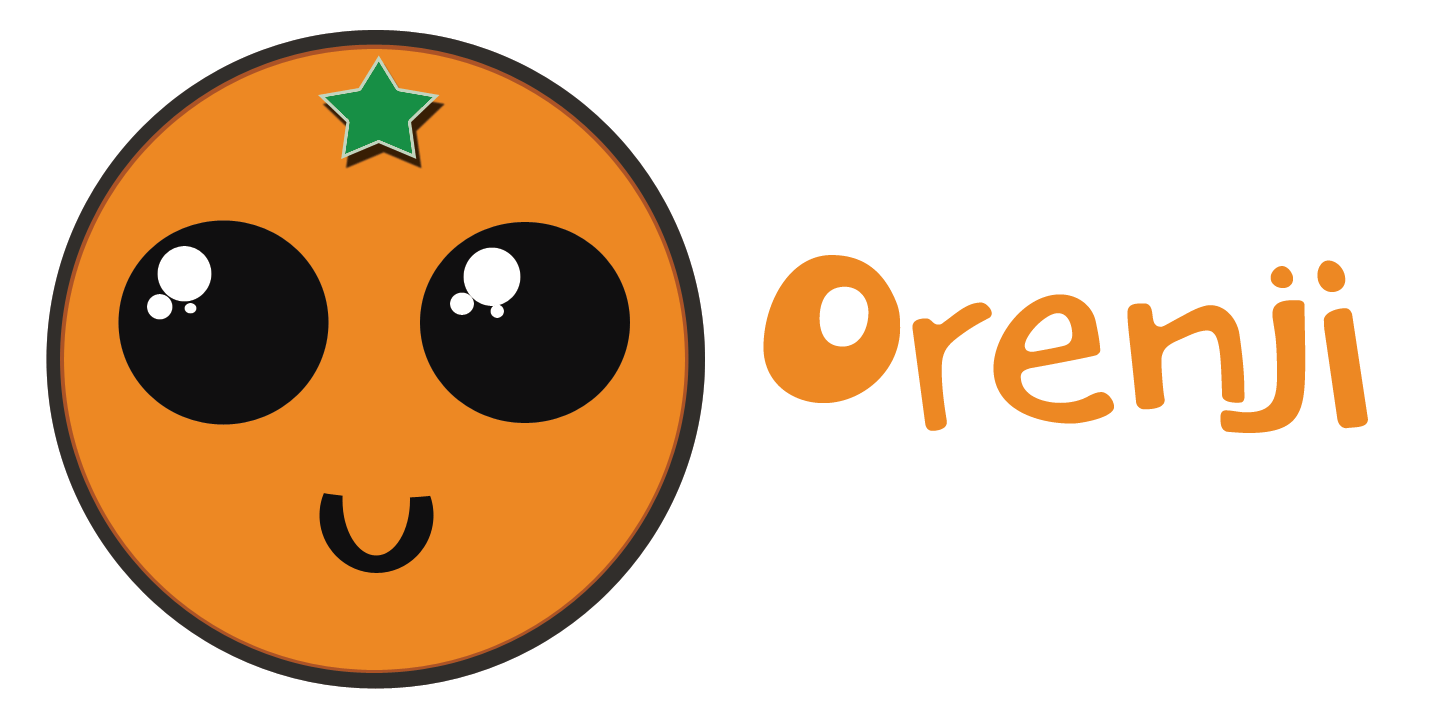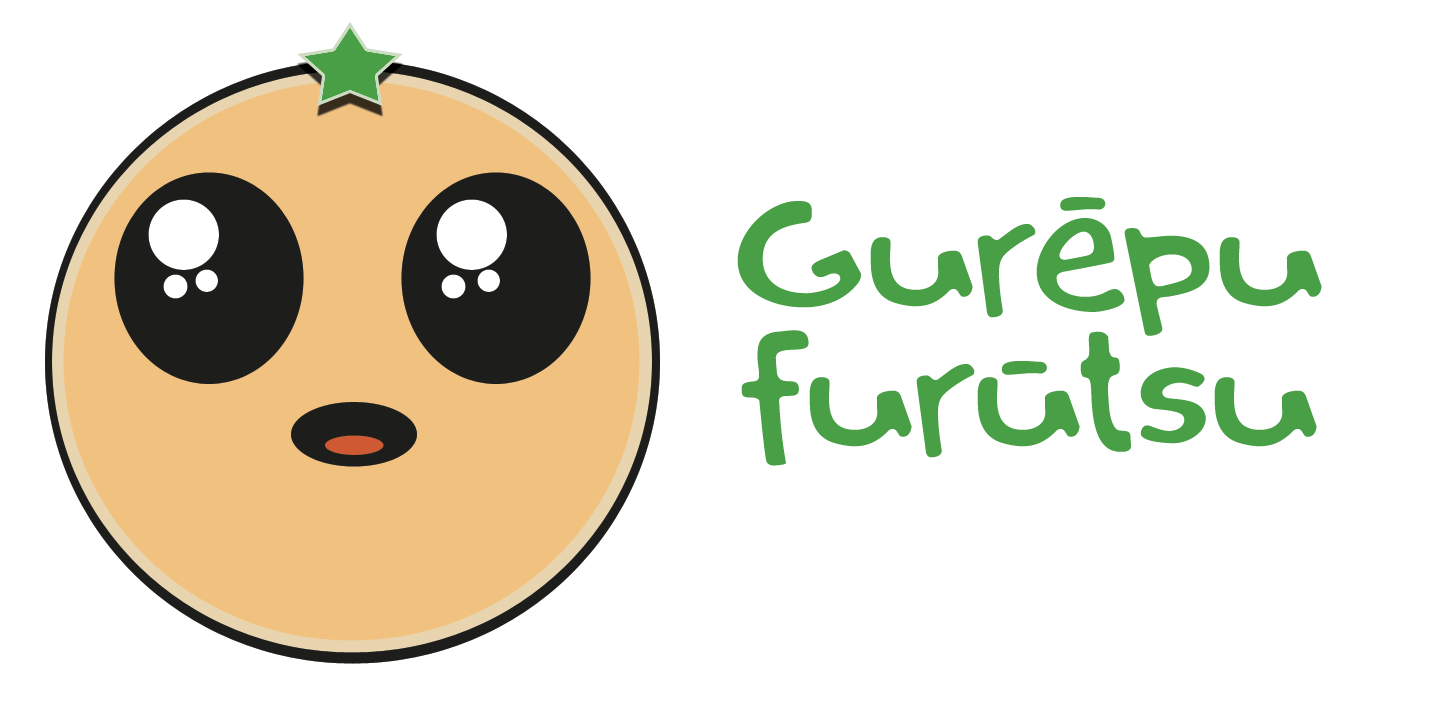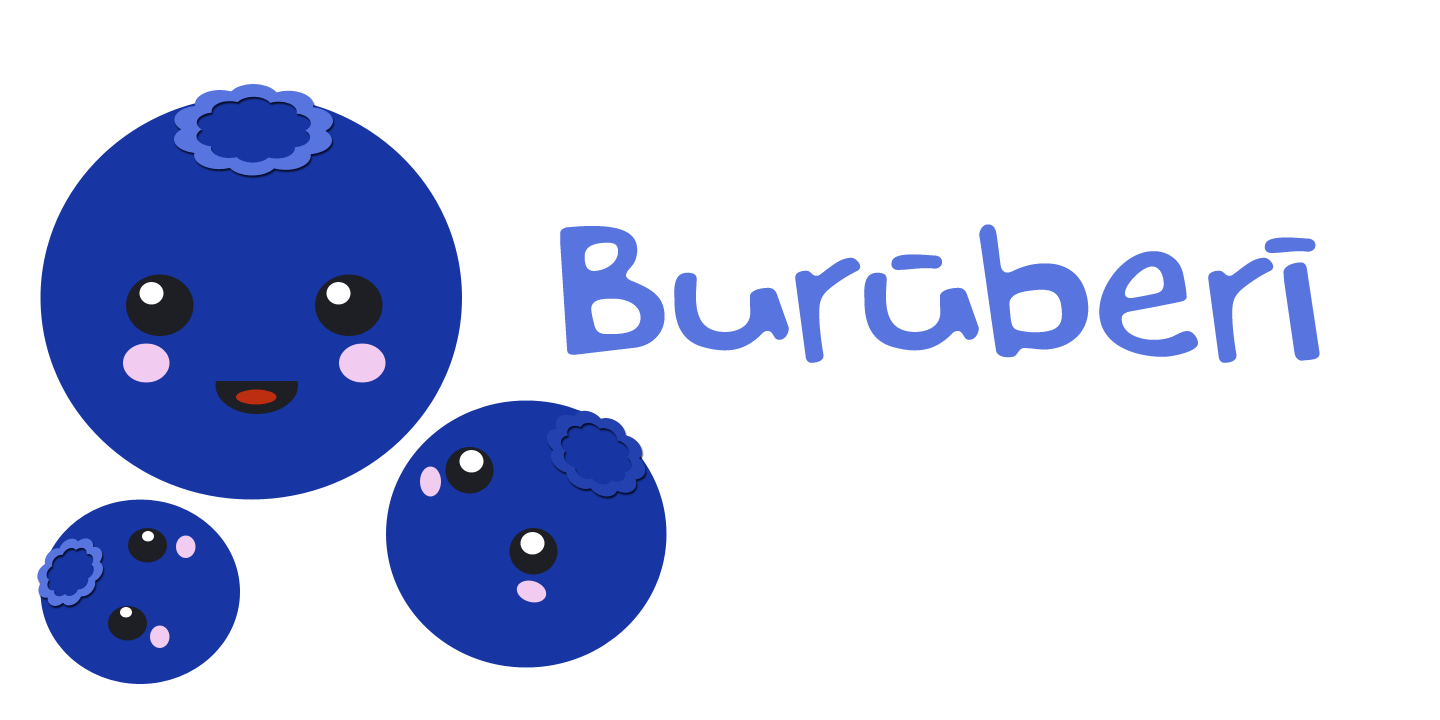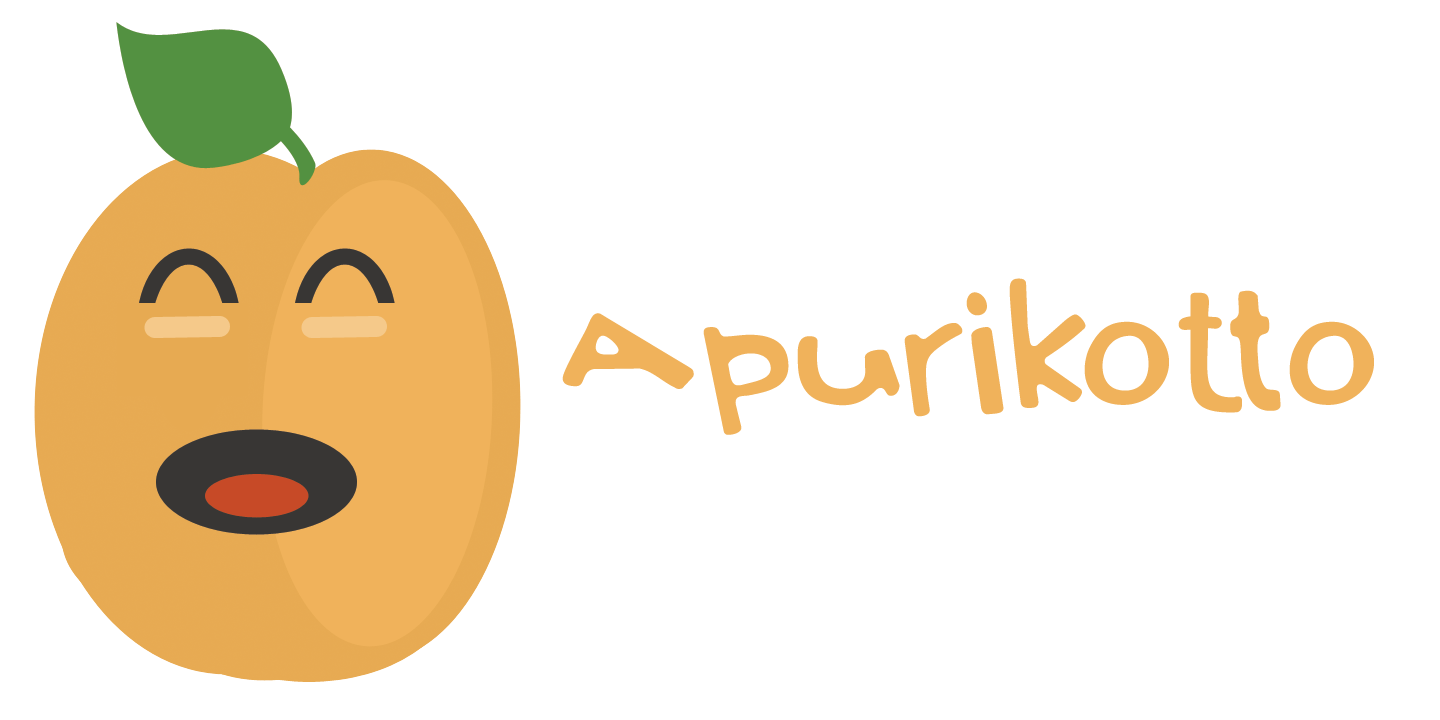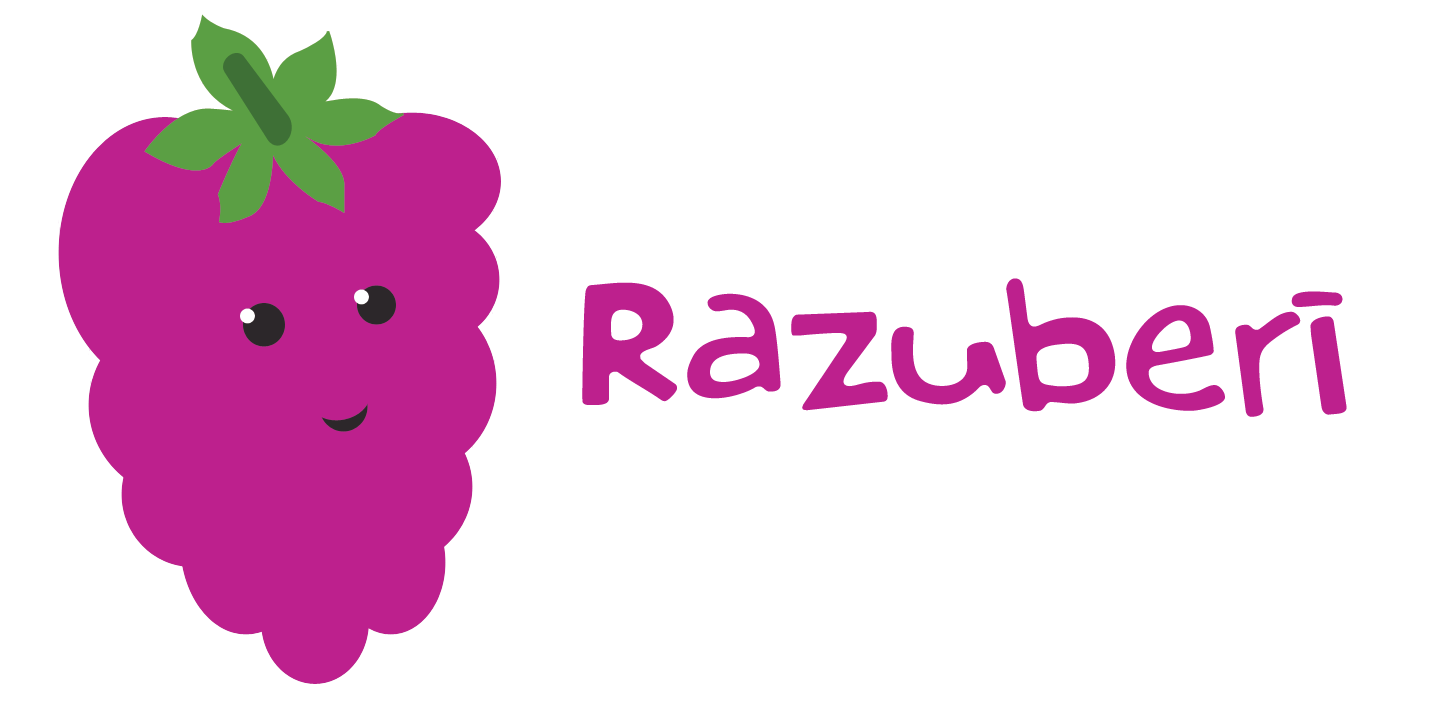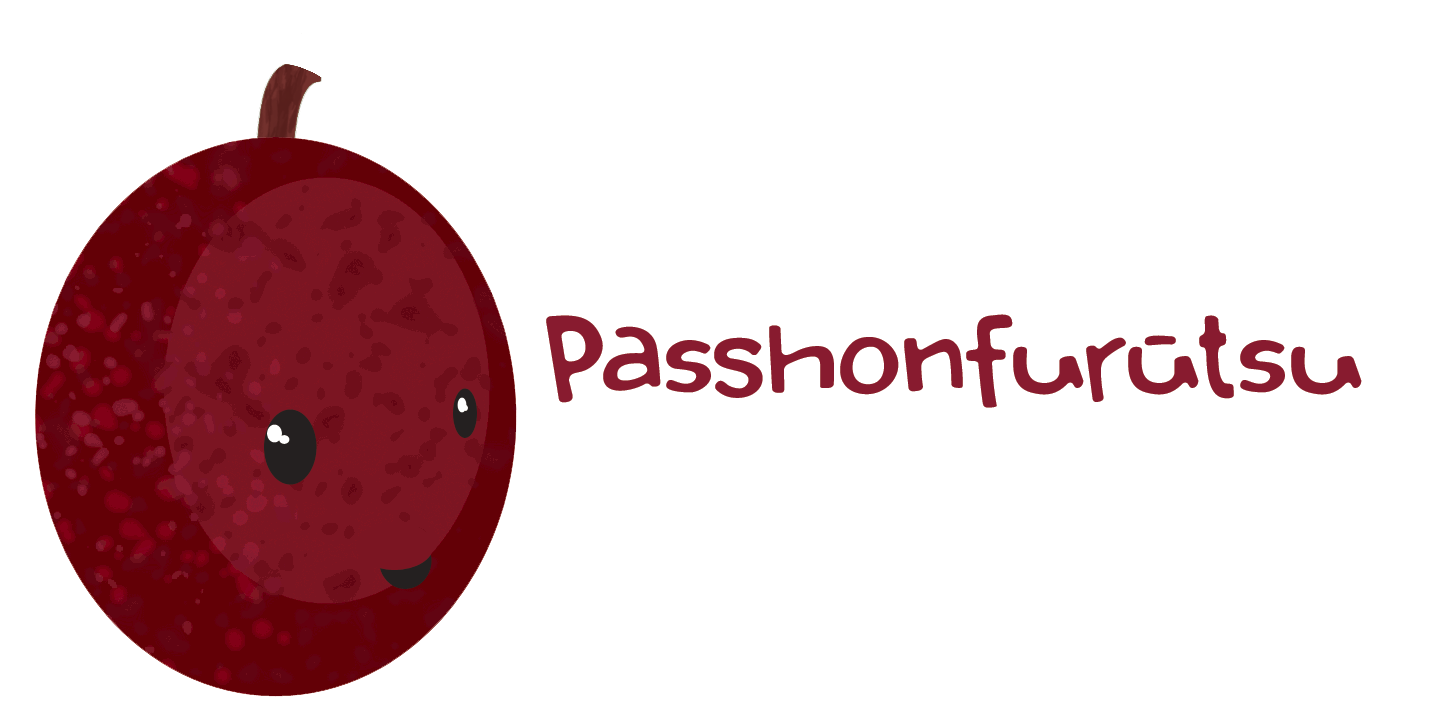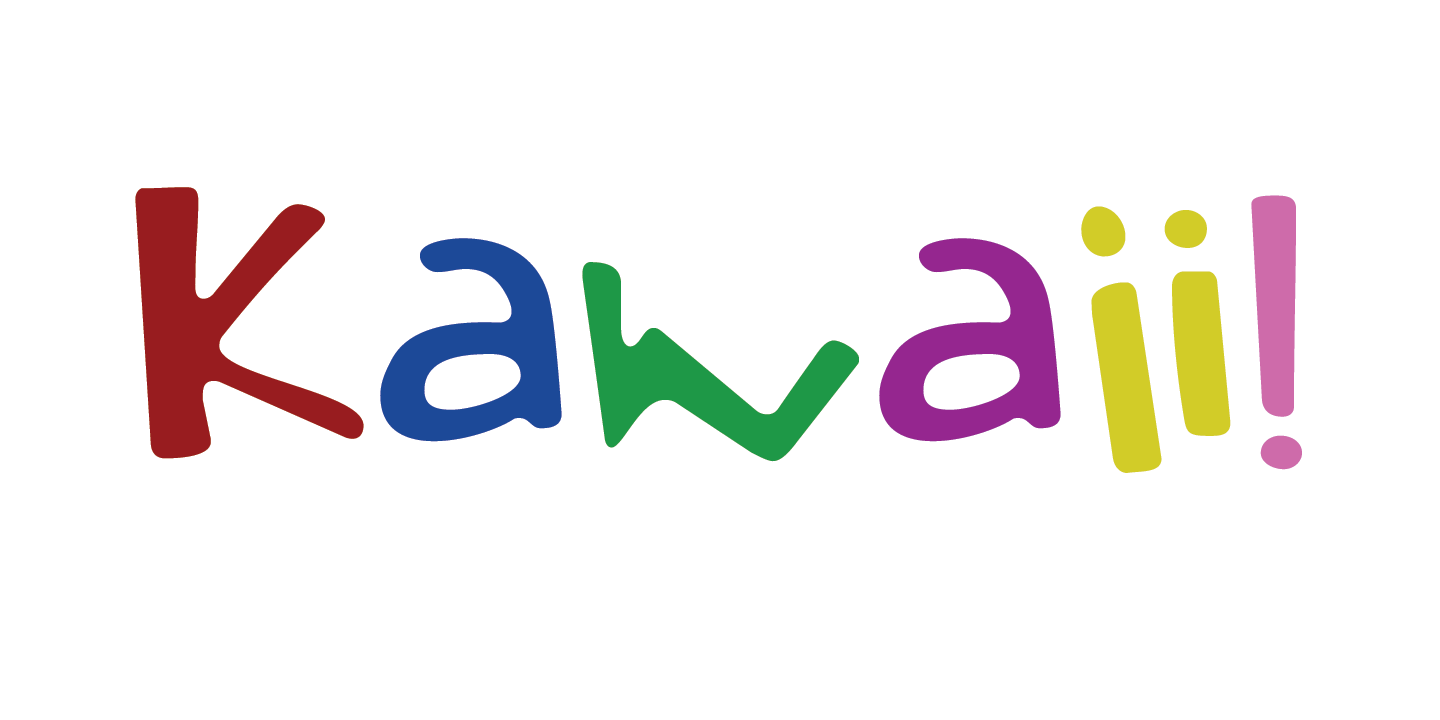
Orenji
Buy NowOrenji is the Japanese word for Orange: it is a phonetic translation of the English word. I was actually looking for a certain shade of orange (the color), when I stumbled upon this fun word. I already toyed with the idea of creating a font loosely based on my son Sam's handwriting and I figured Orenji would be a good name for it.
Orenji is a fun, cute and extravagant font. It has some uniquely shaped glyphs, comes with a giggle and a hug, is like soooo kawaii and has more diacritics than you can throw a banana at.